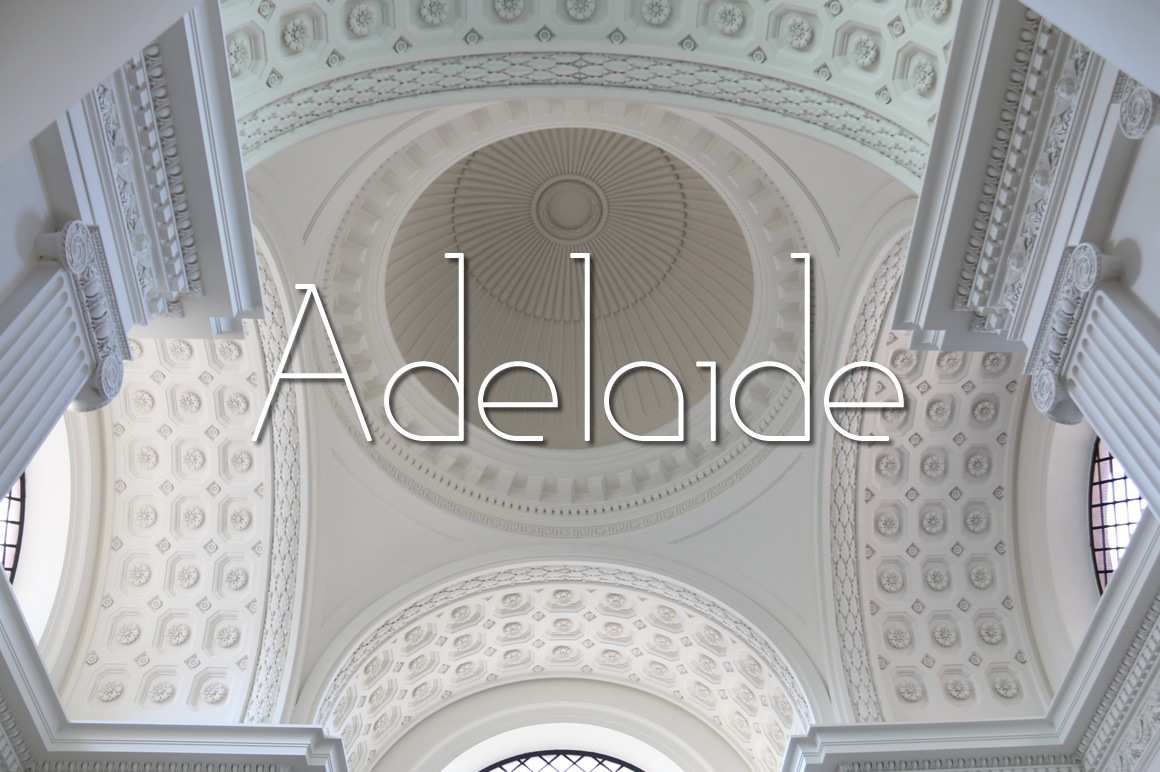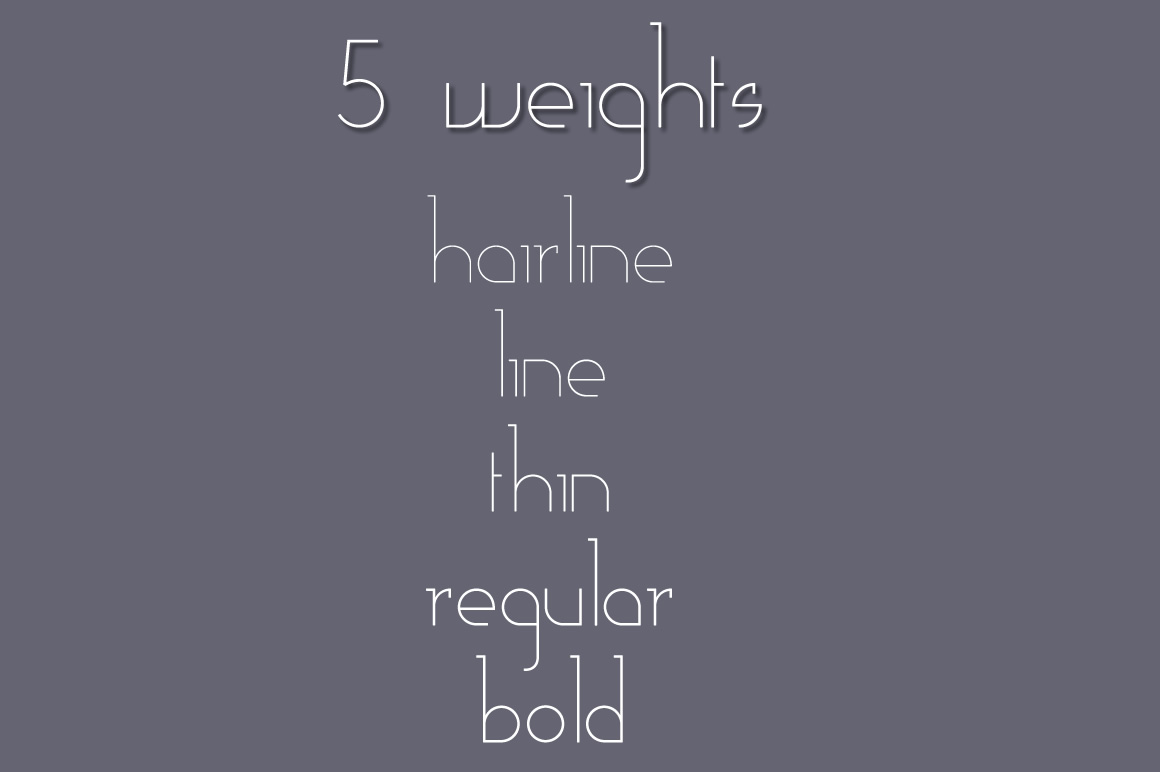
HomePersonal Use FreeAdelaide Personal Use Free Adelaide FacebookXPinterestWhatsApp 1 of 2 About Adelaide Font Adelaide is a stunning, elegant font that comes in 5 different weights. DOWNLOAD ON CREATIVE FABRICAThis font is sold and delivered by Creative Fabrica. Font Canyon may earn a commission if you buy through this link. People also explored Brilliant Font Easter Font Prickly Cactus Font Milestone Ligatures Font Chelsey Bobby Font Beatlove Font Carstenz Font Valentine Bright Font Syahida Font 421 0 TagsAdelaide Abbott FontAdelaide Font Previous articleSenza BellaNext articleGinóra LEAVE A REPLY Cancel reply Comment: Please enter your comment! Name:* Please enter your name here Email:* You have entered an incorrect email address! Please enter your email address here Website: Save my name, email, and website in this browser for the next time I comment. Personal Use Free Proudly Personal Use Free Read more about this font Coffete Personal Use Free Read more about this font Vexler Slip Personal Use Free Read more about this font Starter Personal Use Free Read more about this font BLOG Using Fonts in Digital Marketing: Tips to Strengthen Your Brand Identity In the realm of digital marketing, every visual element plays a crucial role in shaping a brand's identity, and fonts are no exception. The... Top 10 Handwritten Fonts That Elevate Your Designs Elegant Wedding Invitation Fonts – Handwritten & Script Fonts The 10 Best Handwriting Fonts to Add Personality to Your Designs